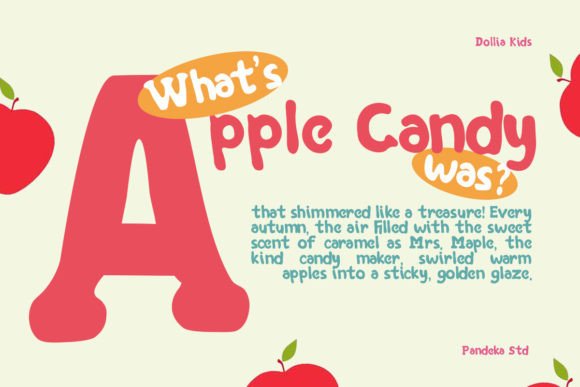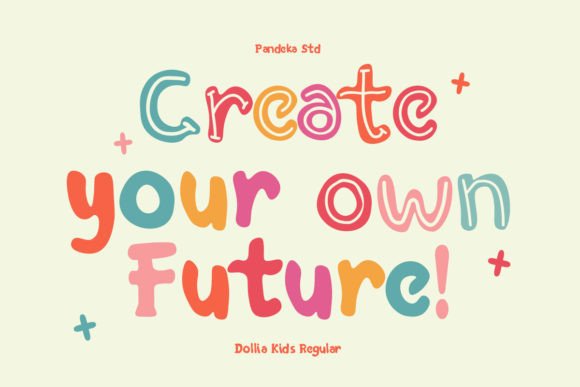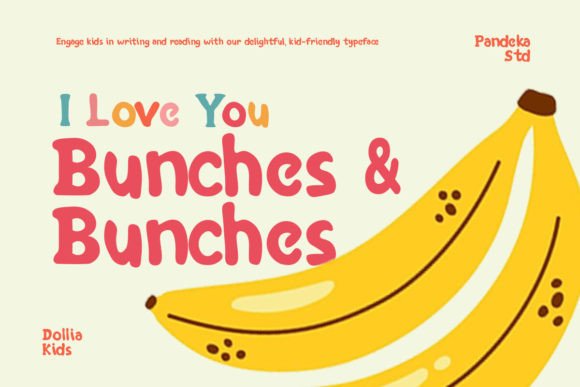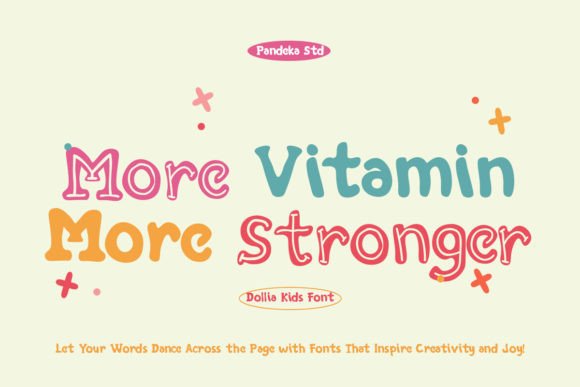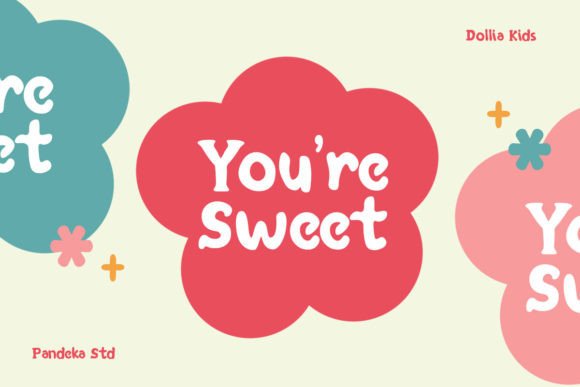
Introduction to Dollia Kids Font
Do you remember the thrill of creating a project for your kids, watching their imagination and creativity shine through? Whether it’s a school project, a birthday invitation, or a DIY toy, we’ve all been there. But, let’s face it, finding the perfect font can be a challenge. That’s why we’re excited to introduce you to the Dollia Kids Font, a fun and playful design resource that’s sure to bring a smile to your face and your child’s.
With its soft, rounded letters and transparent background, the Dollia Kids Font is a high-quality design resource that’s perfect for any creative project. Not only is it free to download, but it’s also incredibly versatile, making it a valuable addition to any designer’s toolkit. Whether you’re a parent looking to add a personal touch to your child’s project or a designer seeking a unique and engaging design element, the Dollia Kids Font is sure to deliver.
Key Features of Dollia Kids Font
- High-Quality Design: The Dollia Kids Font is a premium design resource that offers a high-quality, visually appealing font perfect for creative projects.
- Transparent Background: This font features a transparent background, making it easy to customize and integrate into your design.
- Unique Characteristics: The Dollia Kids Font features a unique, playful design that is sure to add a touch of creativity to your project.
Honest Review: Dollia Kids Font
I recently had the chance to work with the Dollia Kids Font, a fun and playful font that’s perfect for creative projects targeting kids or families. One of the first things I noticed about this font is its high quality and wide range of glyphs, making it ideal for any project where you need a lot of character options.
One of the standout features of Dollia Kids Font is its ability to be used with a transparent background, which makes it incredibly versatile and easy to work with. This feature also makes it a great design resource for anyone looking to create custom graphics or designs that require a bit more flexibility.
- High-quality glyphs and character options
- Ability to use with a transparent background
- May not be suitable for projects requiring a more serious or professional tone
- Some users may find the font’s playful nature to be overwhelming or distracting
Overall, I was really impressed with the Dollia Kids Font and its potential to add a fun and creative touch to any project. While it may not be the best fit for every project, it’s definitely a great option to have in your design arsenal. ✨
Design Tips
Dollia Kids Font is perfect for creating playful and creative projects, such as children’s book illustrations, party invitations, and educational materials. It’s also great for designing websites, social media graphics, and marketing materials that require a fun and youthful tone.